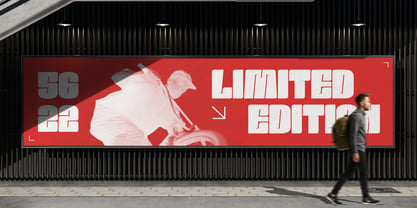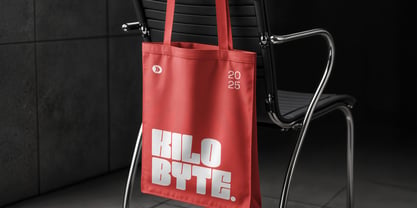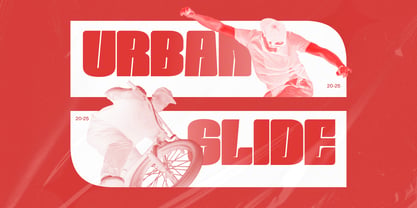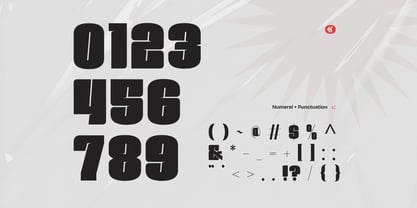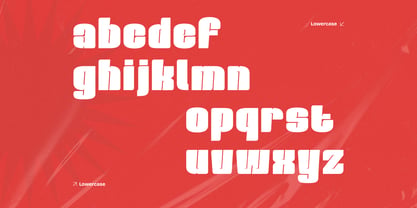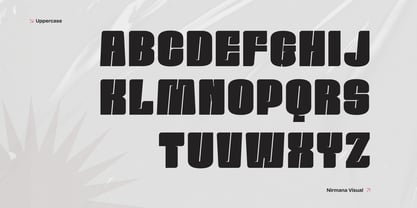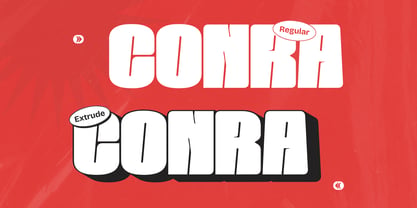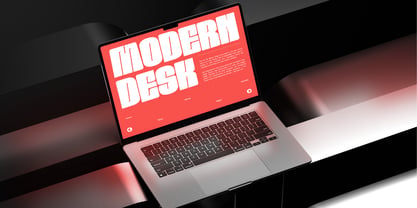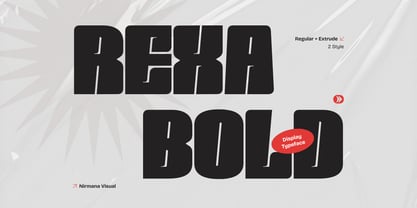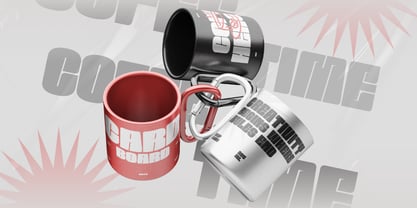
Rexa Bold
by Nirmana Visual
The Rexa Bold Font Family was designed by Sigit Dwipa and published by Nirmana Visual. Rexa Bold contains 2 styles and family package options. More about this family
Rexa Bold is a modern sport display font designed for power and performance. With bold, clean lines and dynamic letterforms, it’s perfect for sports logos, team branding, and posters. The font includes Regular and Extrude styles, allowing you to create striking 3D effects with ease. Rexa Bold captures energy and confidence, making every design stand out with a modern, athletic edge. Ideal for professional and competitive visual identities.
Designers: Sigit Dwipa
Current Foundry: Nirmana Visual